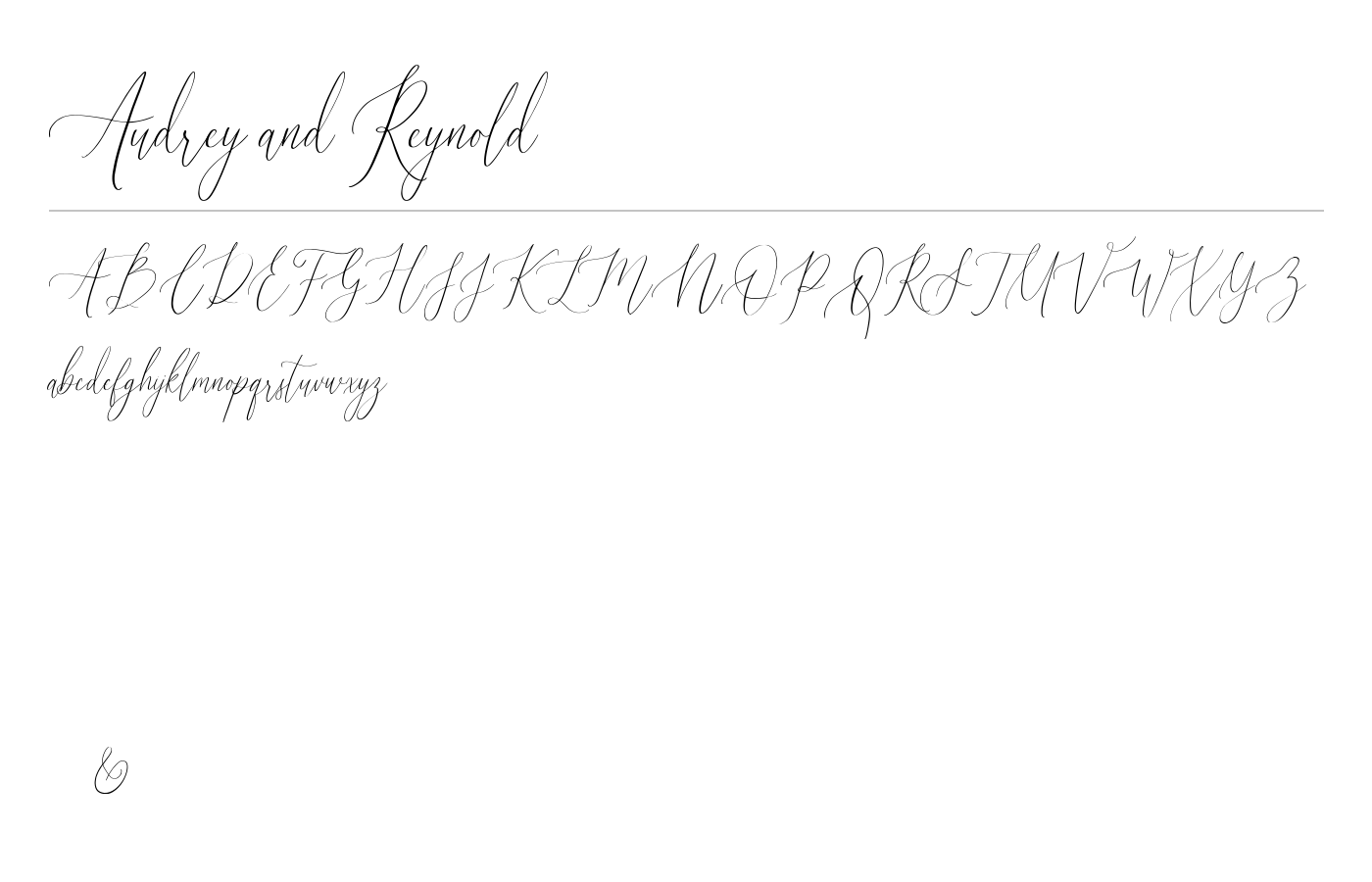
Audrey and Reynold is a delicate, elegant script font characterized by its fine, flowing lines and graceful, handwritten feel. Its slender, airy letterforms with intricate swashes make it perfect for sophisticated branding, wedding invitations, and luxury packaging, where a romantic and refined touch is desired. This font excels in display use, adding a sense of elegance and personal flair to any design.
Audrey and Reynold Font